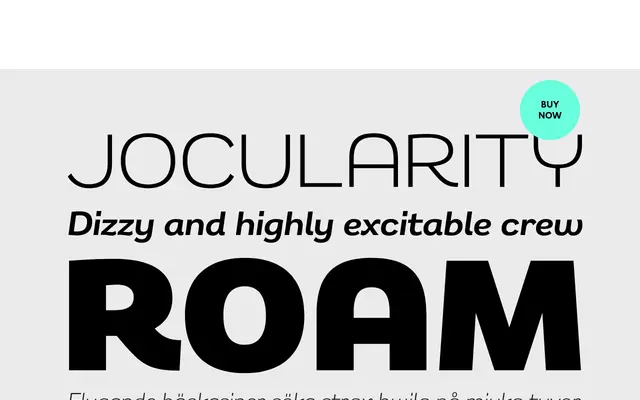
Remora Sans
A wide-ranging humanist sans serif in five widths, distinguished by rounded stroke details, curved leg forms and characterful italics.
Seventy fonts span five widths from the condensed W1 to the extra-wide W5, each width offering 14 styles. Distinctive cap forms include a splayed M and rounded A, W and Y strokes, while the lowercase carries curved legs on J, K and R, a spurless u and an expressive italic set with alternate x, y and z. All fonts include small caps, stylistic alternates across five style sets, and both proportional and tabular lining figures.
Explicitly described as a humanist sans serif with characteristic details such as curved leg forms, spurless lowercase, and expressive italic alternates, placing it firmly in the humanist sans tradition.